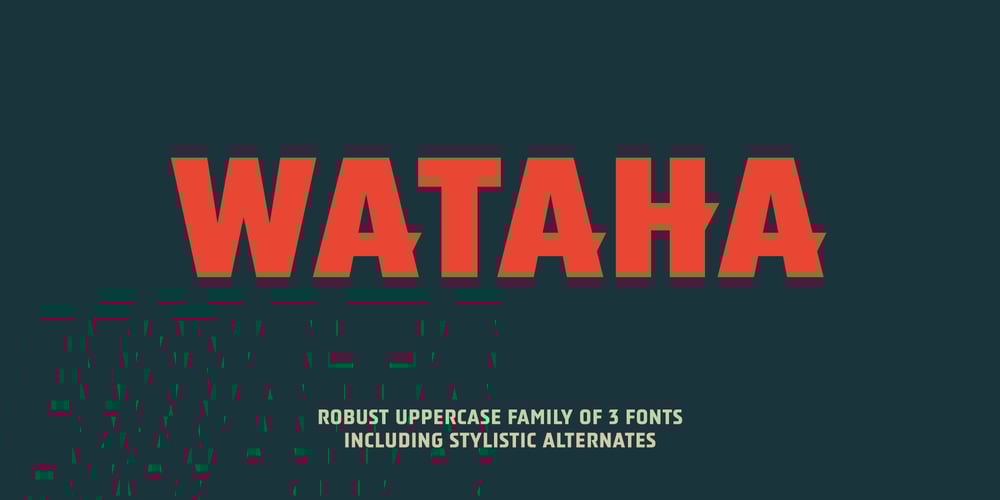
Wataha Font Family was designed by Piotr Ciesielski and published by Soar Studio. Wataha contains 3 styles and family package options. Wataha (in polish – wolf pack) is a sharp, robust uppercase family of 3 fonts: Bold, Heavy and Black. Perfect for posters, headlines and logotypes.With a range of OpenType features you have access to alternative letter shapes, fractions, arrows etc.Wataha supports most Latin-based languages and few others.